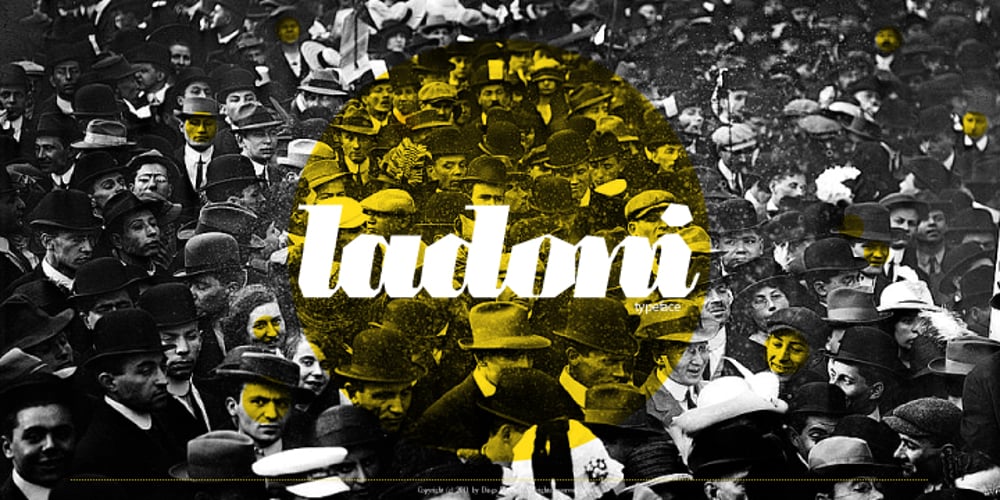
Ladoni
Ladoni font
Ladoni Font Family was designed by Diogo Pisoeiro and published by Diogo Pisoeiro. Ladoni contains 5 styles and family package options. This typeface is inspired on Bodoni, but this is like his gross sister, because it has angles instead of curves. Is a typeface with personality, strong and robust but at the same time sweet with his italics. This typeface has 5 weights, regular, italic, bold, poster and poster italic.